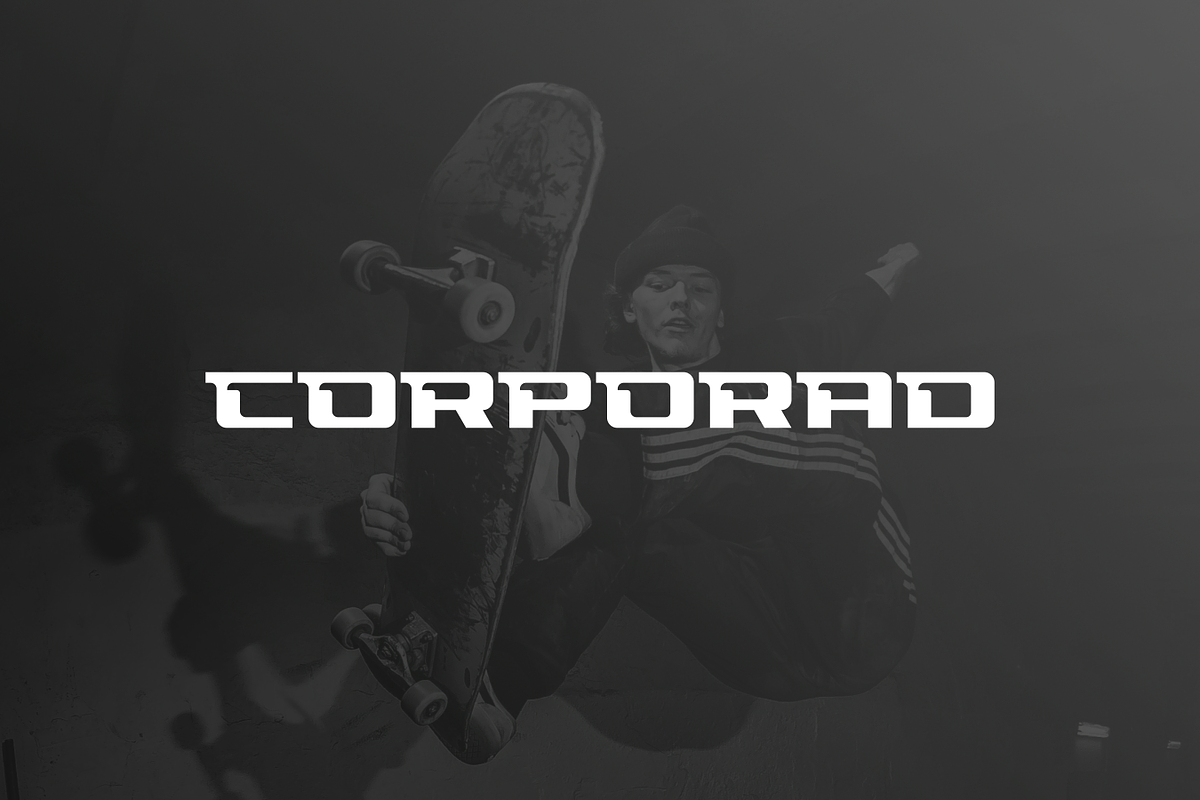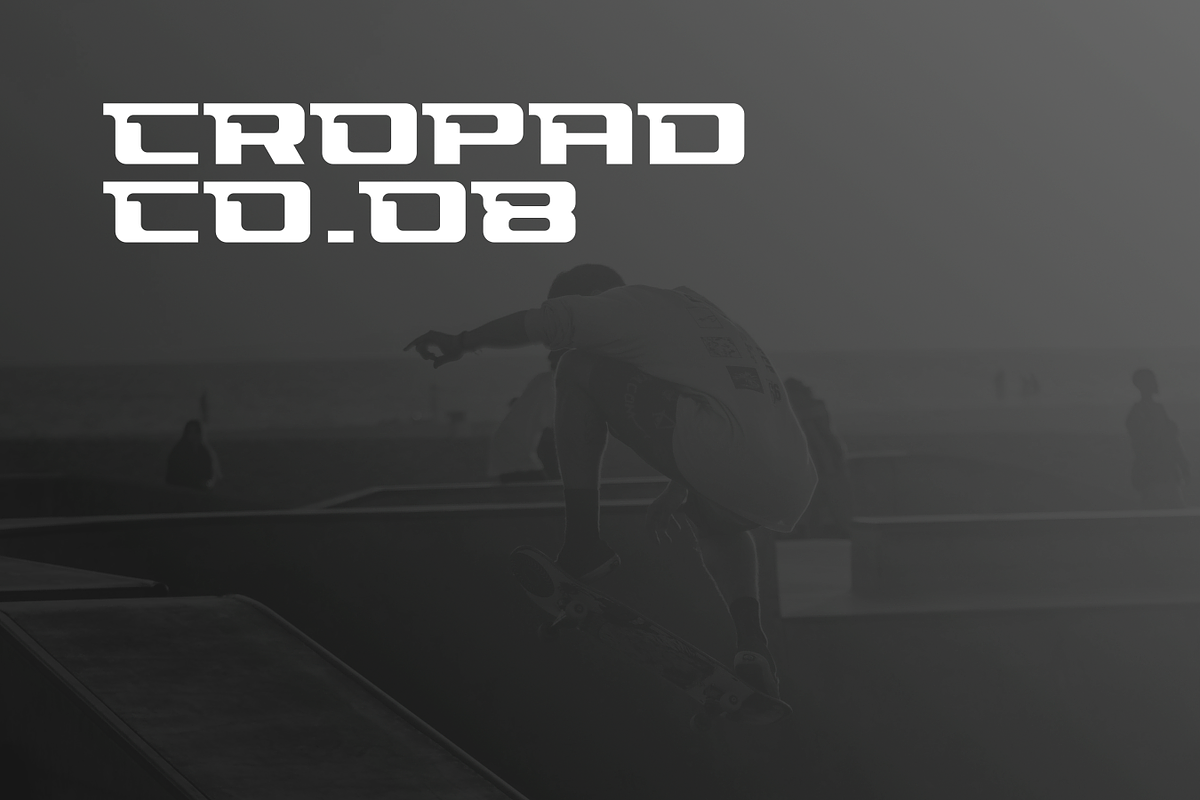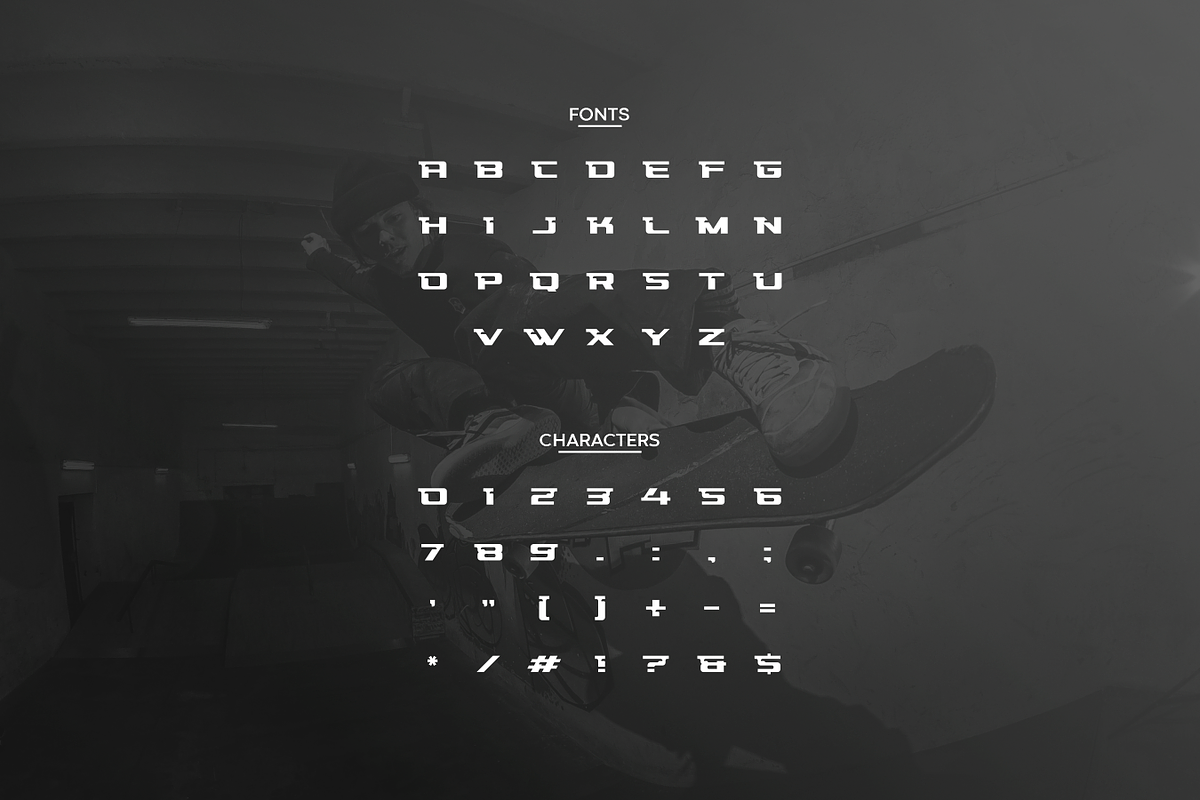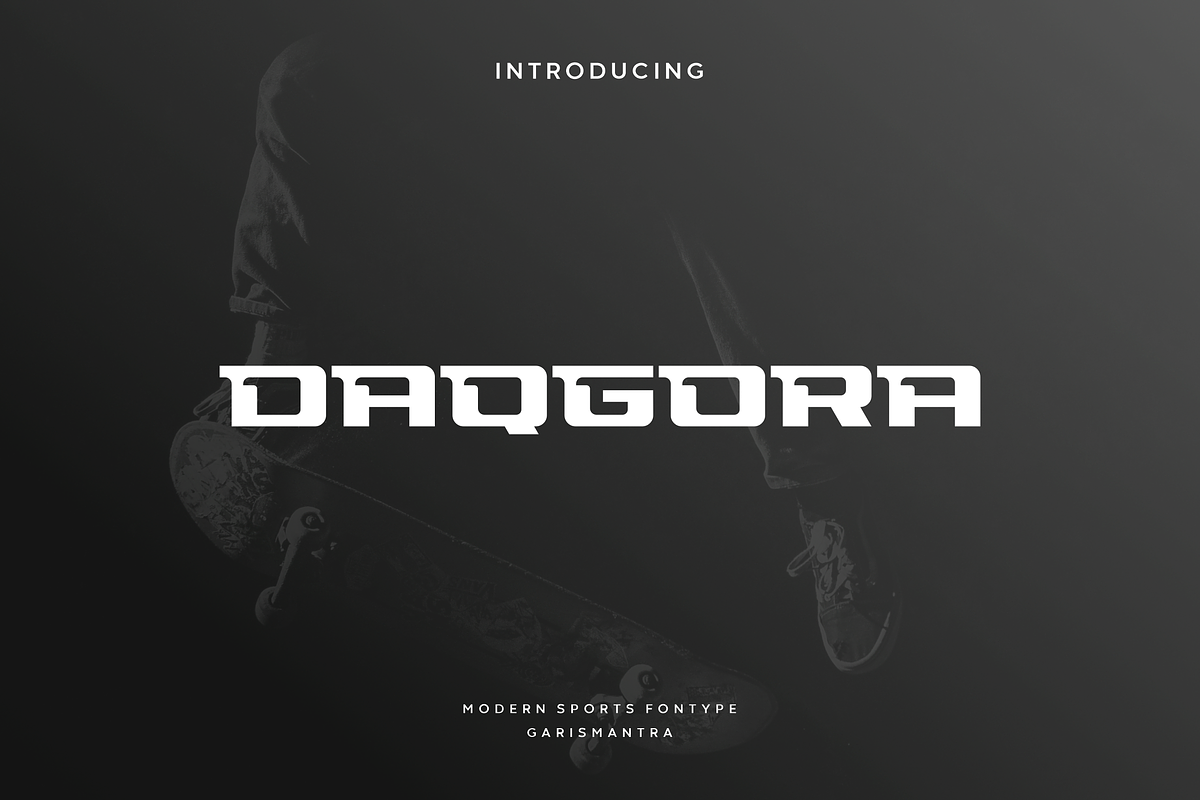
Daqgora
Daqgora is a sports typeface that brings a mix of classic and modern styles into a powerful new style with cutout accents at every corner. This typeface is only available in all caps, will suit various design needs, very suitable for making logo designs, headlines, also titles related to sports themes. Get it right away and use your imagination for more interesting, different and unique designs.